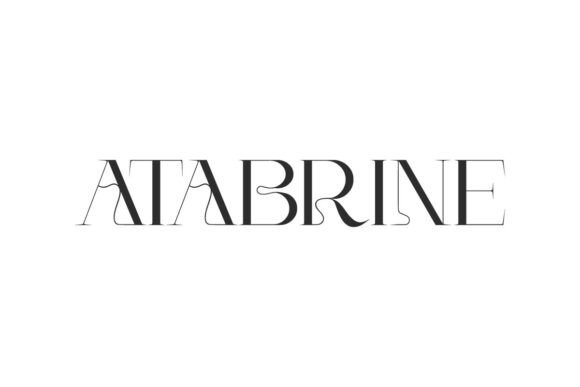
Introduction to Atabrine Font
Atabrine Font is an impressive serif display font with classic elegance of flowing curves wrapped up in modernity.
This font is designed to be easily readable in both print and digital formats It will offer endless possibilities for customization and creativity, suitable for banners, brochures, covers, greeting cards, headers, headings, labels, posters, signage, tags, titles, websites, and more.
Key Features of Atabrine Font